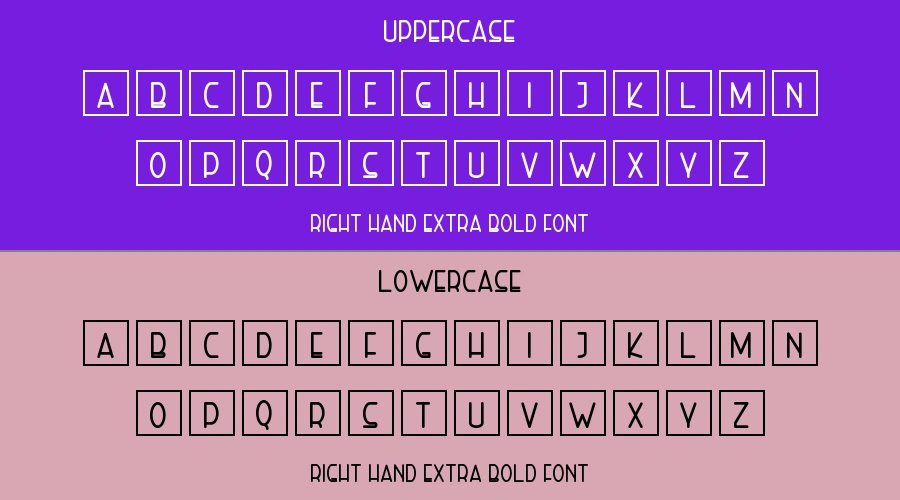
About Right Hand Extra Bold Font
Right Hand Extra Bold Font embodies typographic excellence through its masterful combination of transitional forms and authenticity. Created for brand identities, this typeface delivers exceptional endurance and scholarly value across all applications. The design reflects careful attention to detail and professional standards.
Advanced capabilities include distinctive impactful forms and versatile lining figures, giving designers creative control. When used in campaign headers, Right Hand Extra Bold Font exhibits remarkable output consistency. The harmonious balance between terminal style and market position sets this typeface apart.